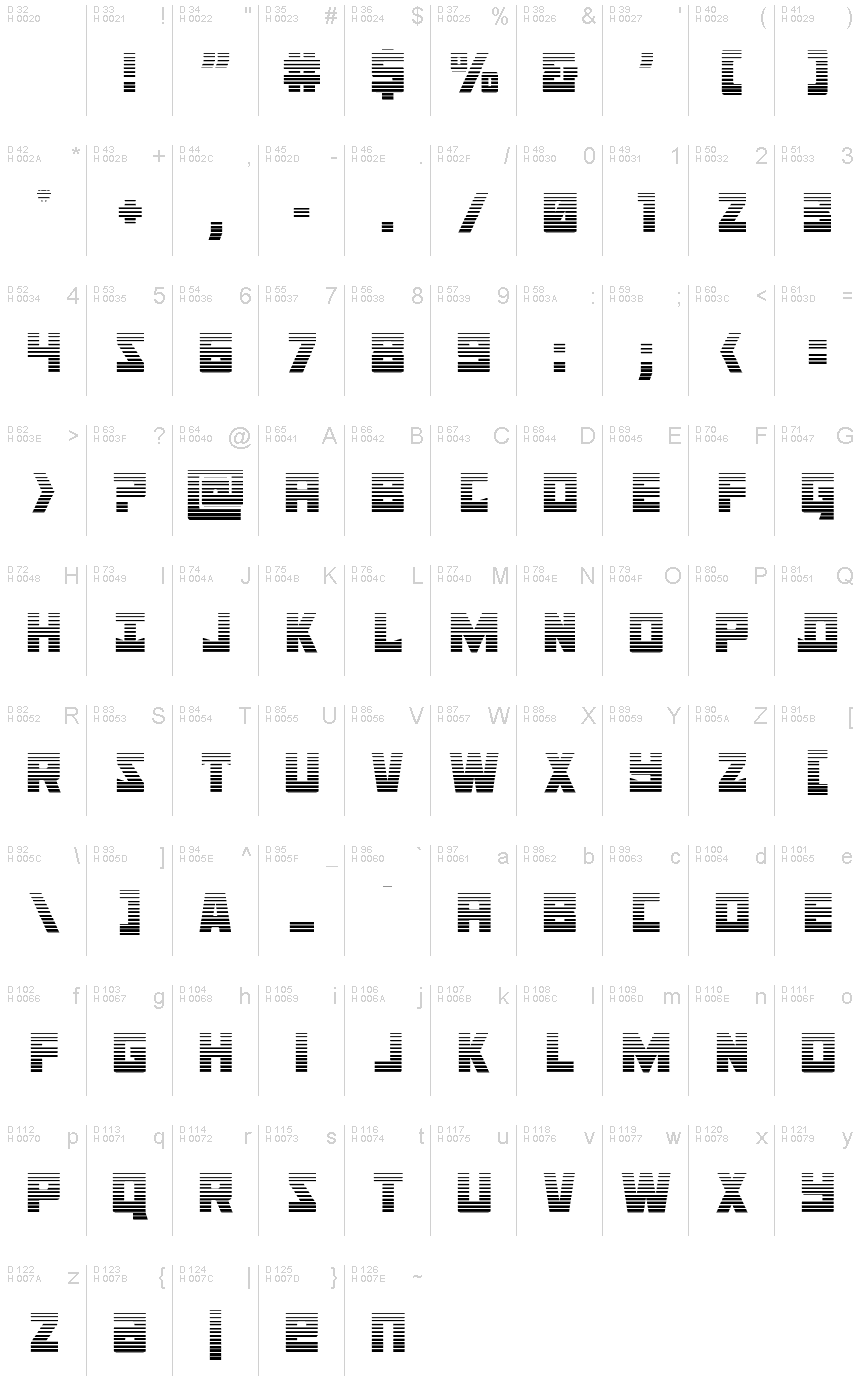
Tower of Silence Gradient
Tower of Silence Gradient emerges as a standout member of the Tower of Silence family, designed by the imaginative minds at Iconian Fonts. This display font, with its techno flair and gradient style, commands attention and evokes modernity. Its extra-bold weight paired with a semi-expanded width crafts a visual punch that's hard to ignore.
Ideal for projects that require a futuristic touch or an edgy vibe, this typeface is well-suited for everything from cutting-edge branding to dynamic digital art. The gradient detail adds depth and dimension, making Tower of Silence Gradient not just a font, but an aesthetic statement ready to elevate your creative vision.